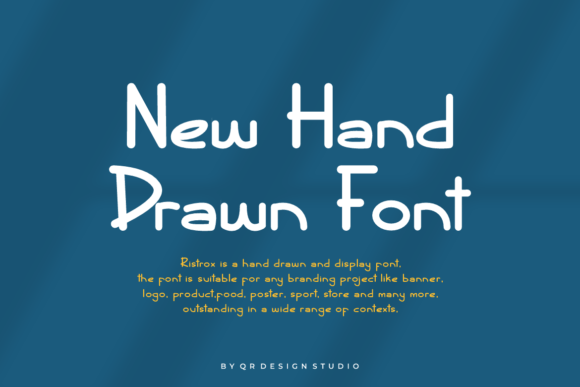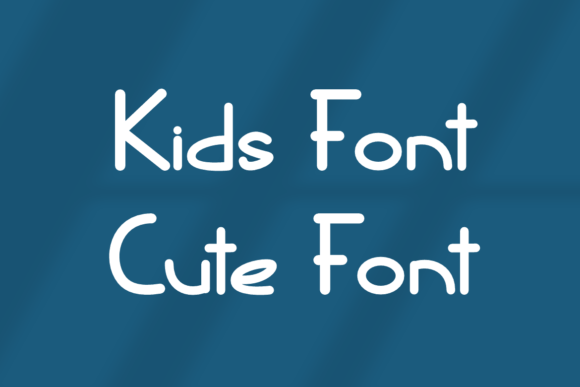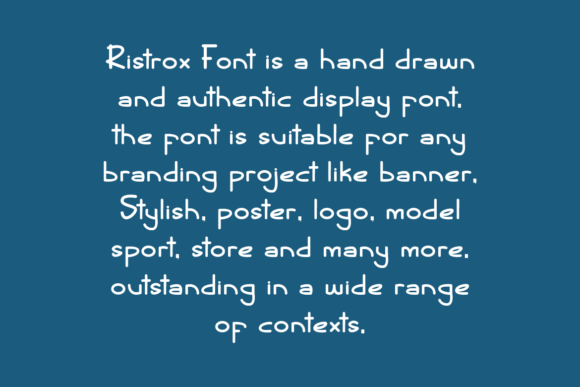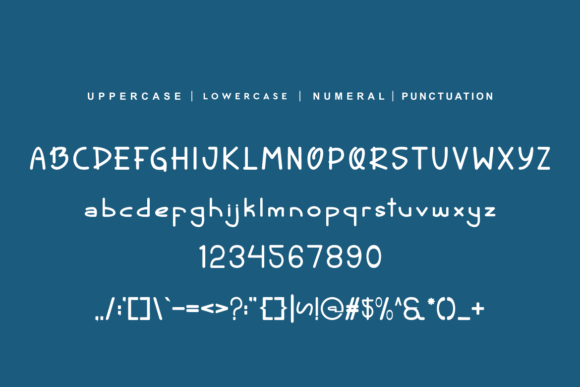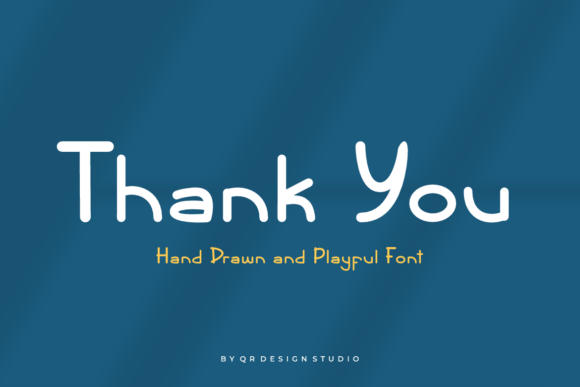
Introduction to Ristrox Font
Have you ever stared at a blank canvas, notebook, or design software, waiting for inspiration to strike? It’s that magical moment when creativity flows, and ideas start pouring in. For designers, this feeling is priceless, and the right font can make all the difference. That’s where the Ristrox Font comes in – a sweet and friendly handwritten font that’s about to become your new best friend.
Key Features of Ristrox Font
- Ristrox Font is a versatile typeface that supports a wide range of languages, making it suitable for international design projects.
- Designed to be highly legible, making it perfect for body text, headings, and titles in various creative projects.
Honest Review: Ristrox Font
- High-quality typography: The Ristrox Font boasts beautiful, crisp typography that’s perfect for headers and body text.
- Limited font styles: While the Ristrox Font is a great addition to any design project, it’s not a comprehensive font family with multiple styles.
- Not ideal for complex designs: The Ristrox Font is best suited for simple designs and may not be the best choice for more complex creative projects.
Tips for Getting the Most Out of Ristrox Font